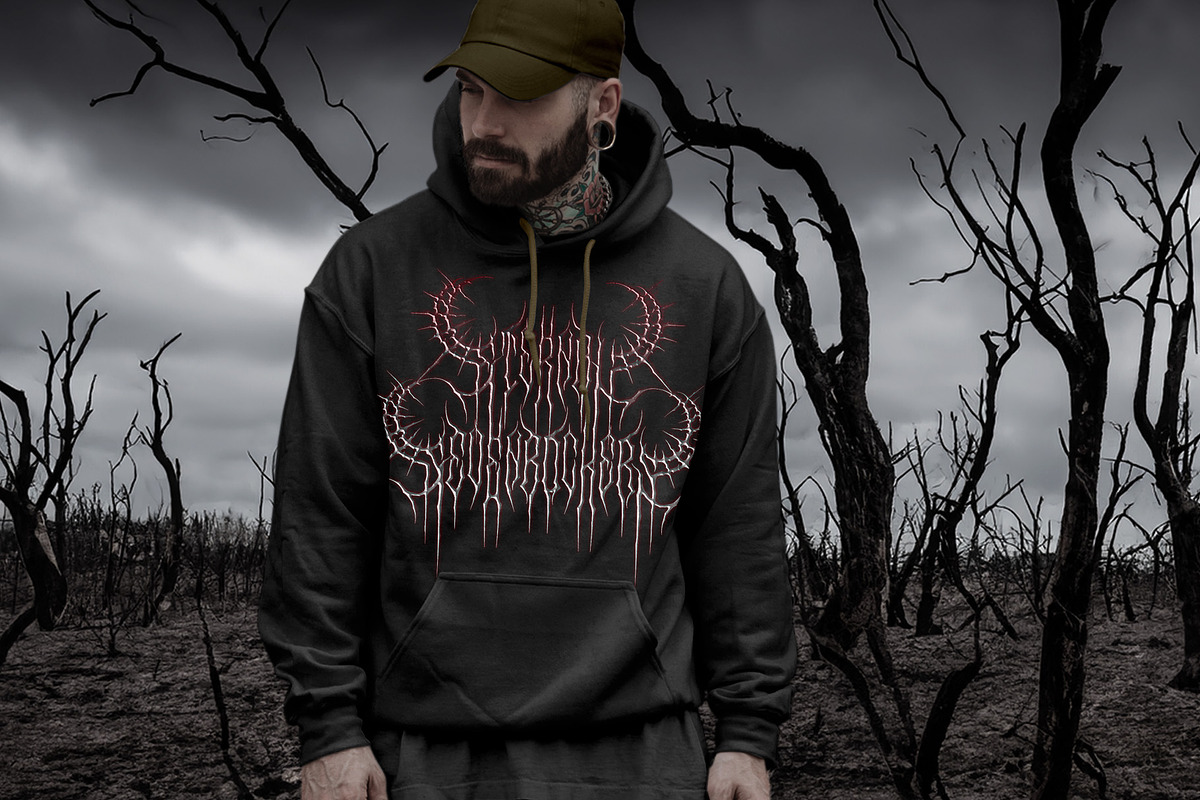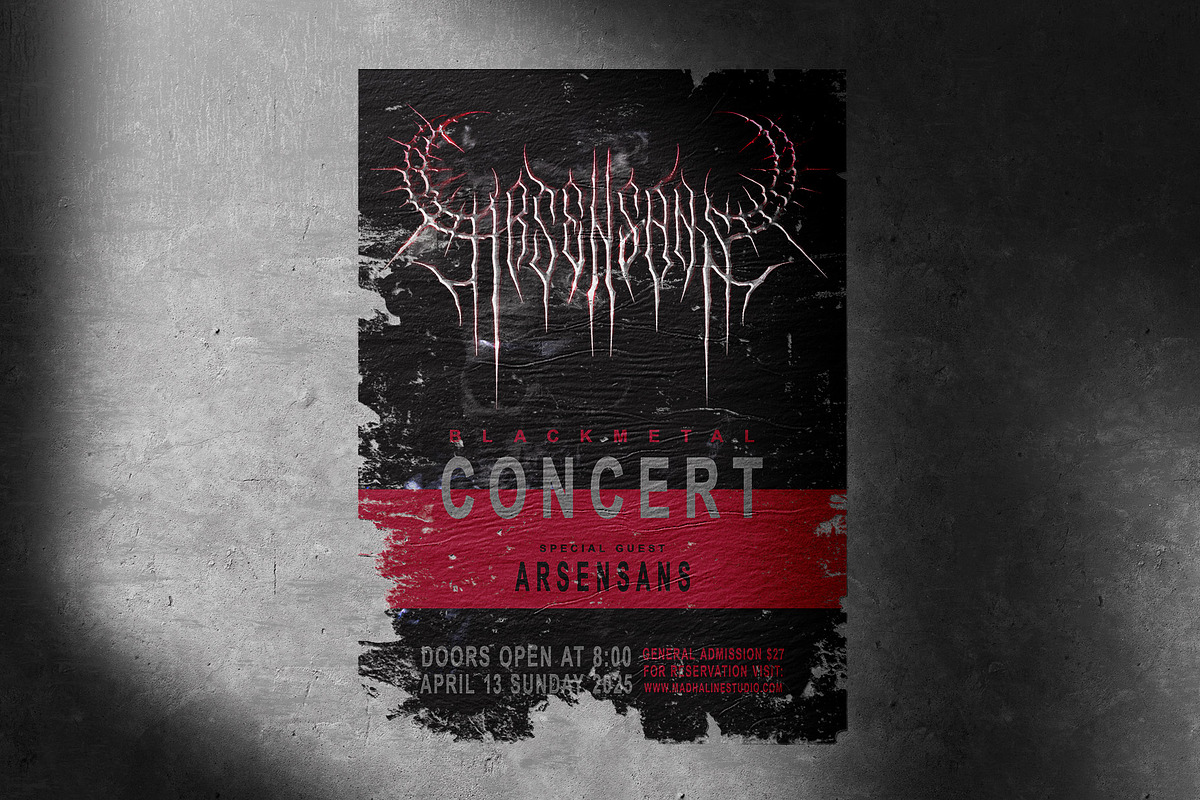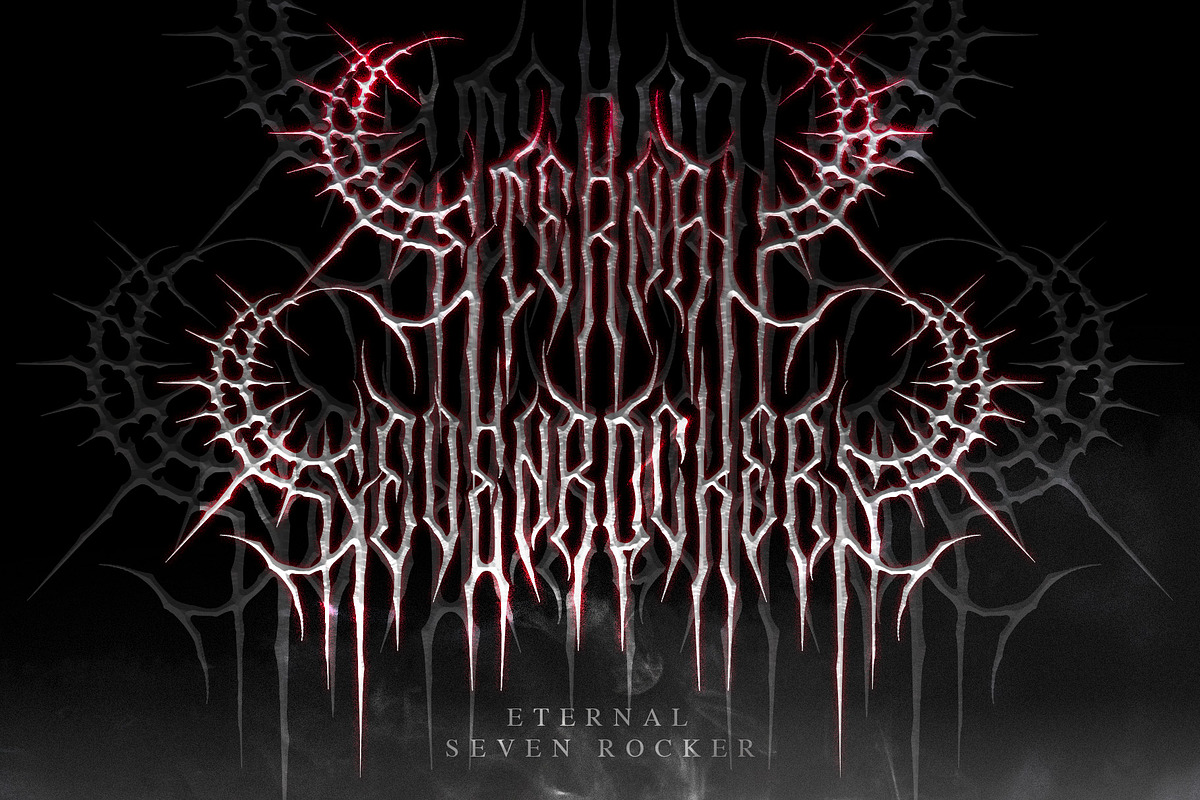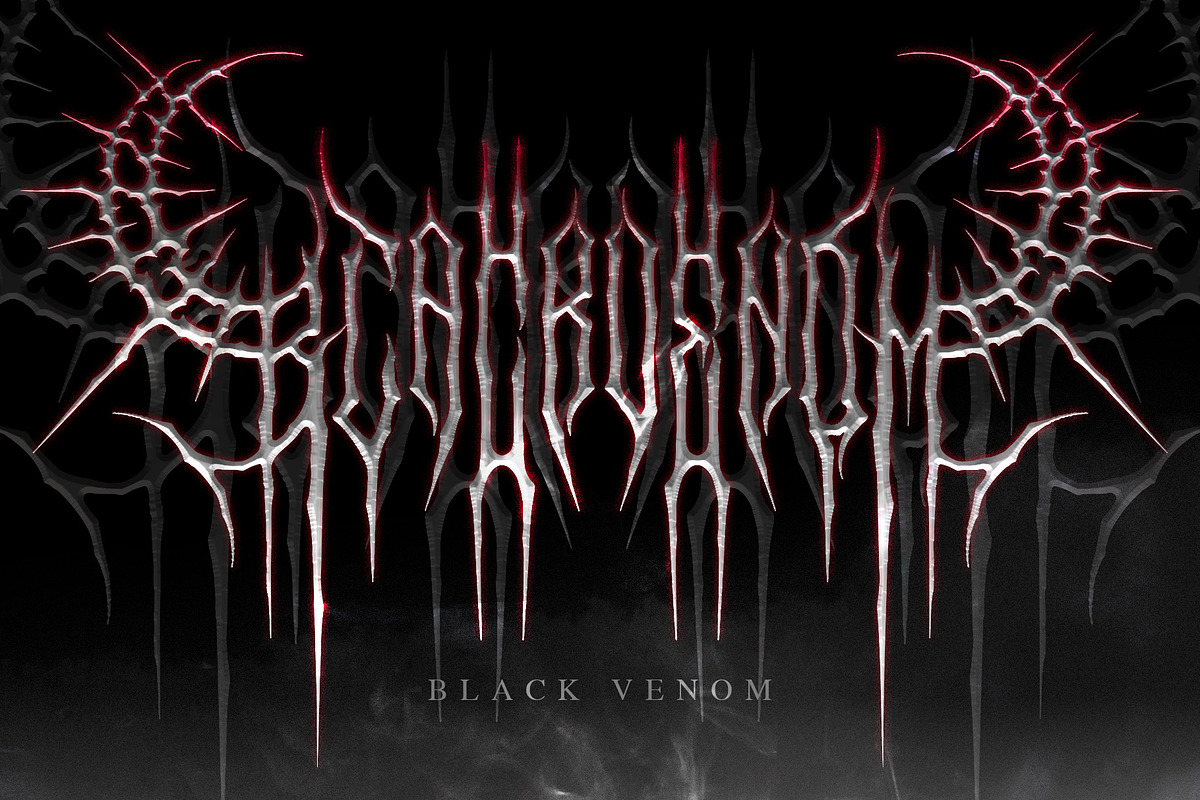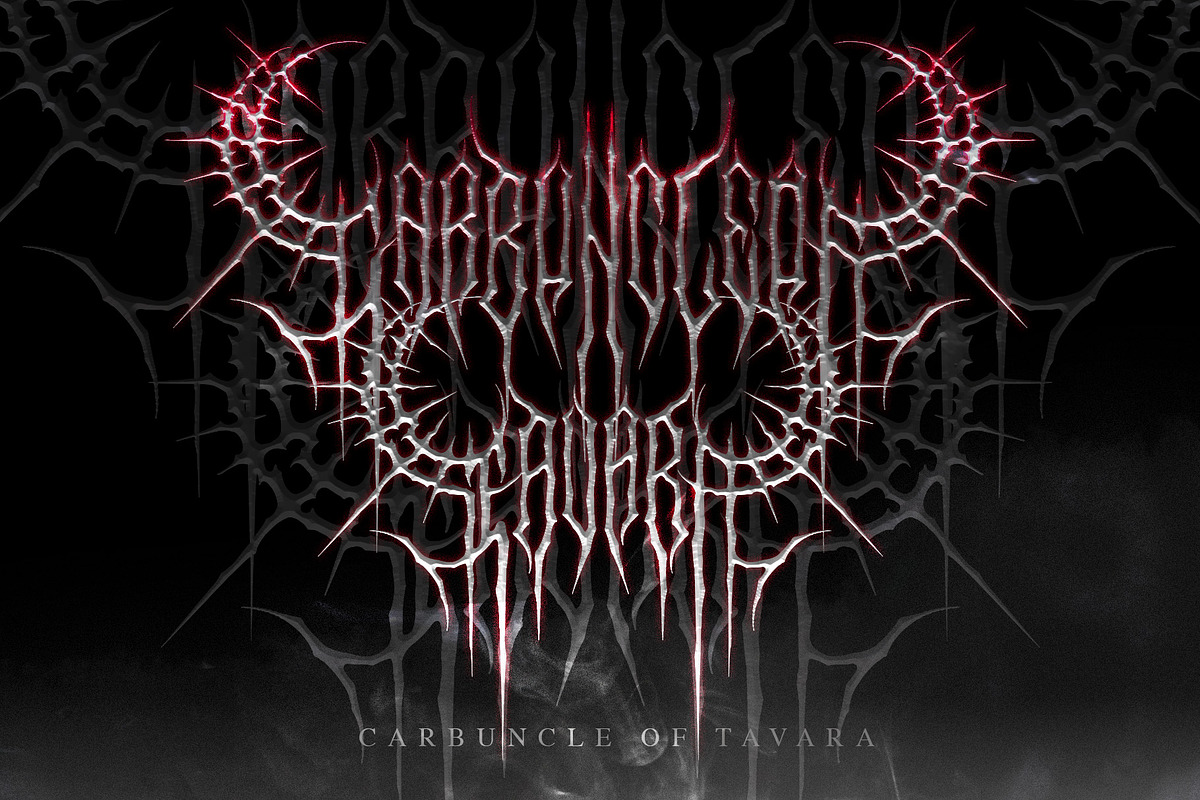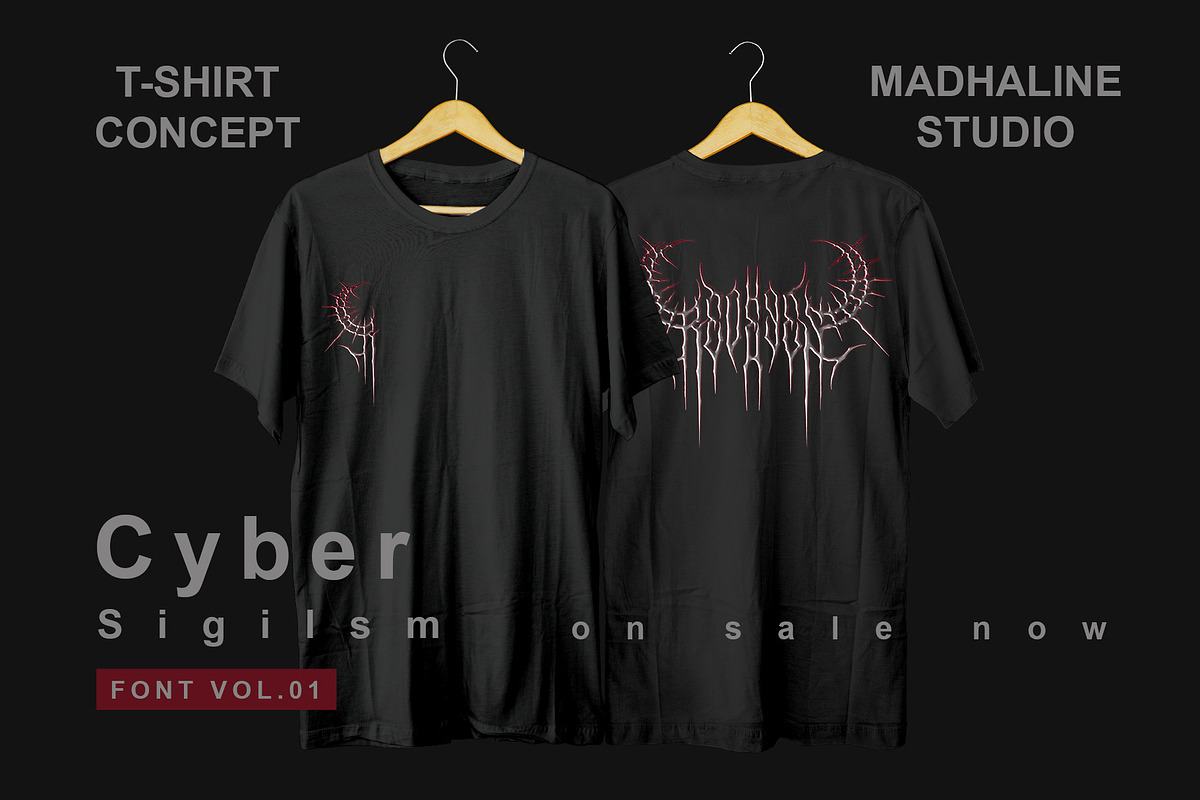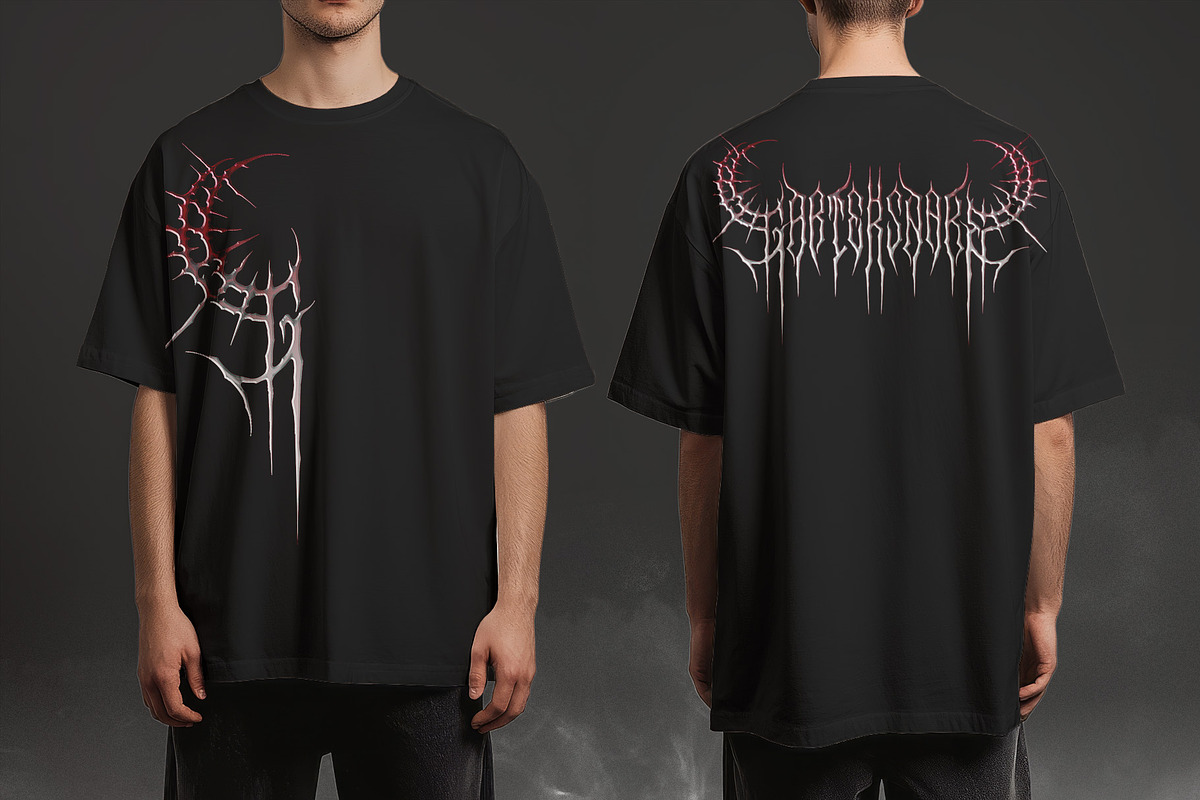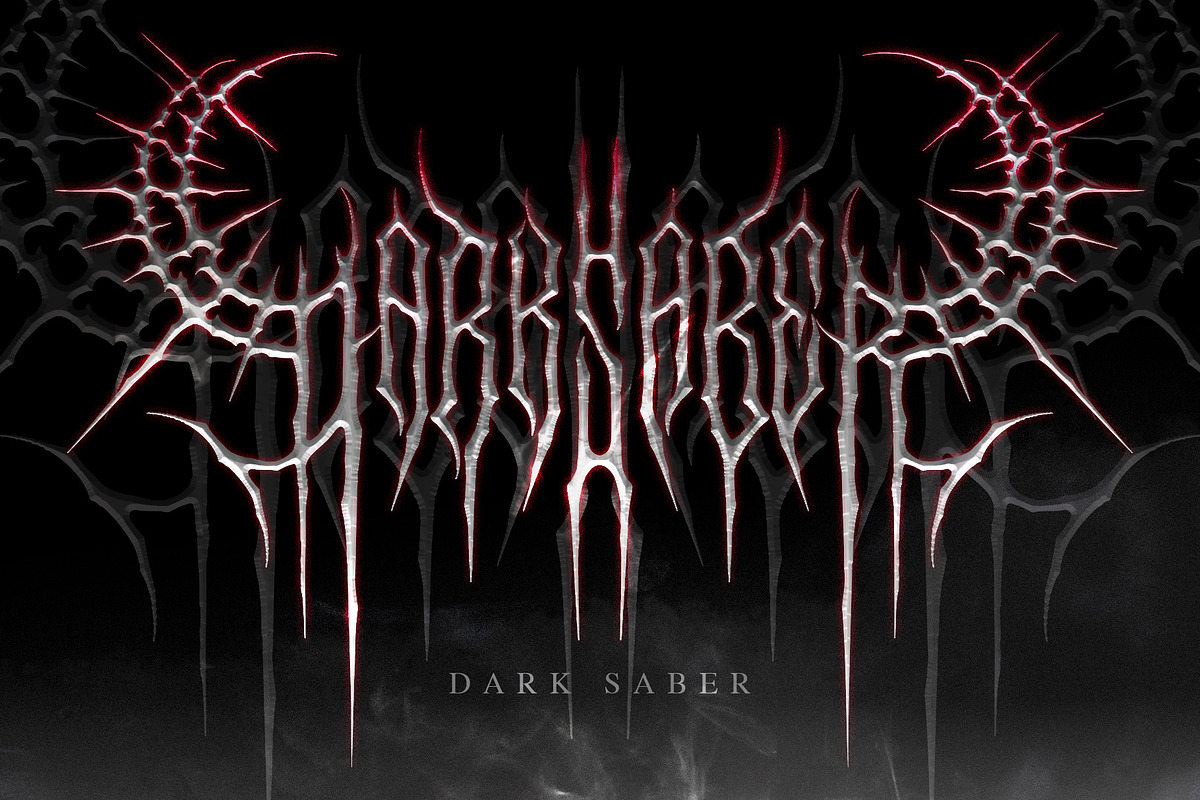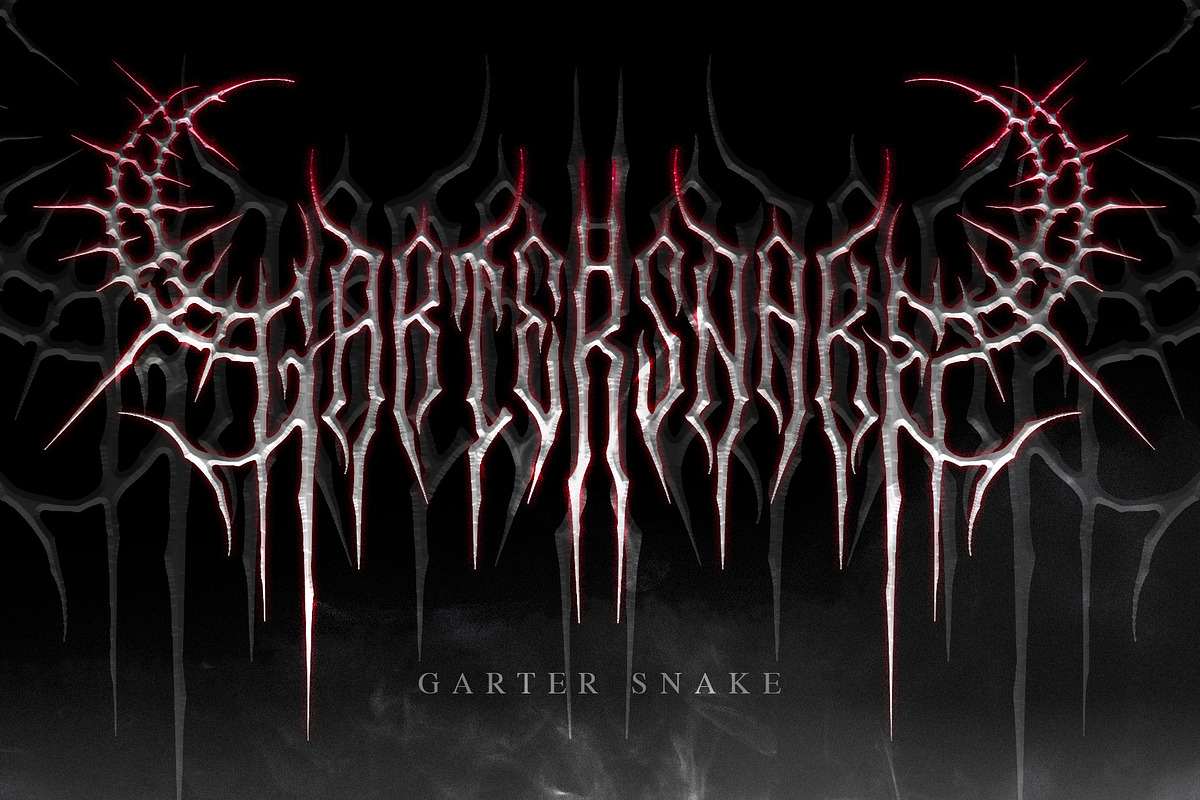
Arsensans | Cybersigilism Font
Arsensans is a cyber sigilism font that has a realistic cyber sigilism logo feel. This font is rich in variations, inspired by cyber sigilism tattoo.
This font combines a symmetrical left-right flip style for each character , giving the impression of horror, cool and frightening.
Arsensans font is suitable for band logos, merchandise, apparel, song titles, game titles, and film titles.